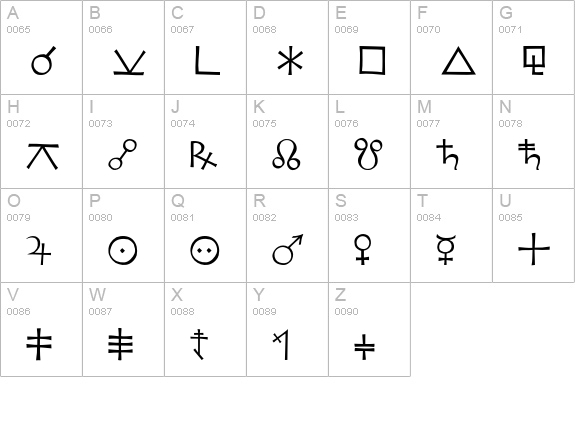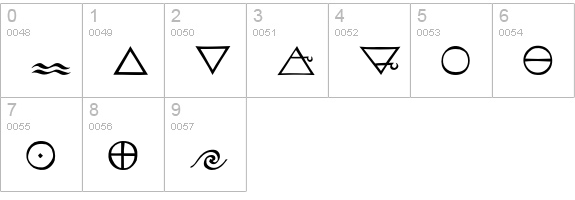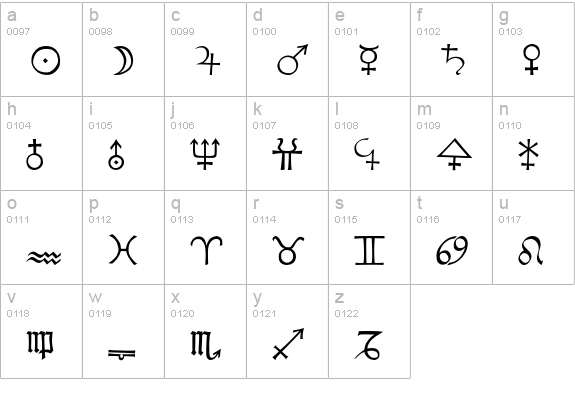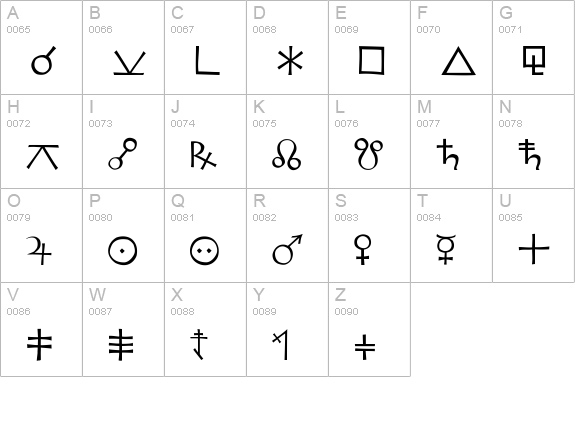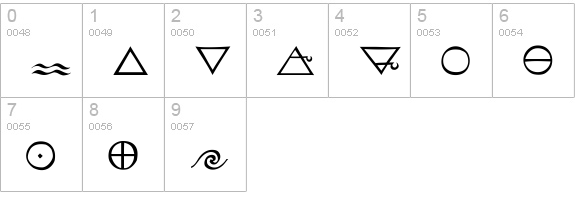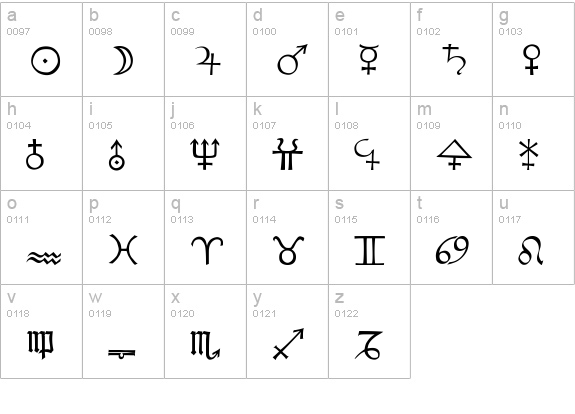
KochSignsThree Font Details
KochSignsThree font is a versatile and modern typeface that adds a touch of elegance to any design project. With its clean lines and stylish curves, this font is perfect for creating eye-catching signage, logos, and branding materials. The sleek and sophisticated look of KochSignsThree font makes it a popular choice among designers looking to elevate their work to the next level. One of the best things about KochSignsThree font is that it is available for free download at FontsMarket.com. This means that you can easily access this beautiful font and use it in your projects without any cost. Whether you are working on a personal project or a commercial design, KochSignsThree font is a great choice for adding a touch of class and sophistication. Don't miss out on the opportunity to enhance your designs with the elegant and stylish KochSignsThree font. Download it for free today at FontsMarket.com and start creating stunning visuals that will impress your audience.